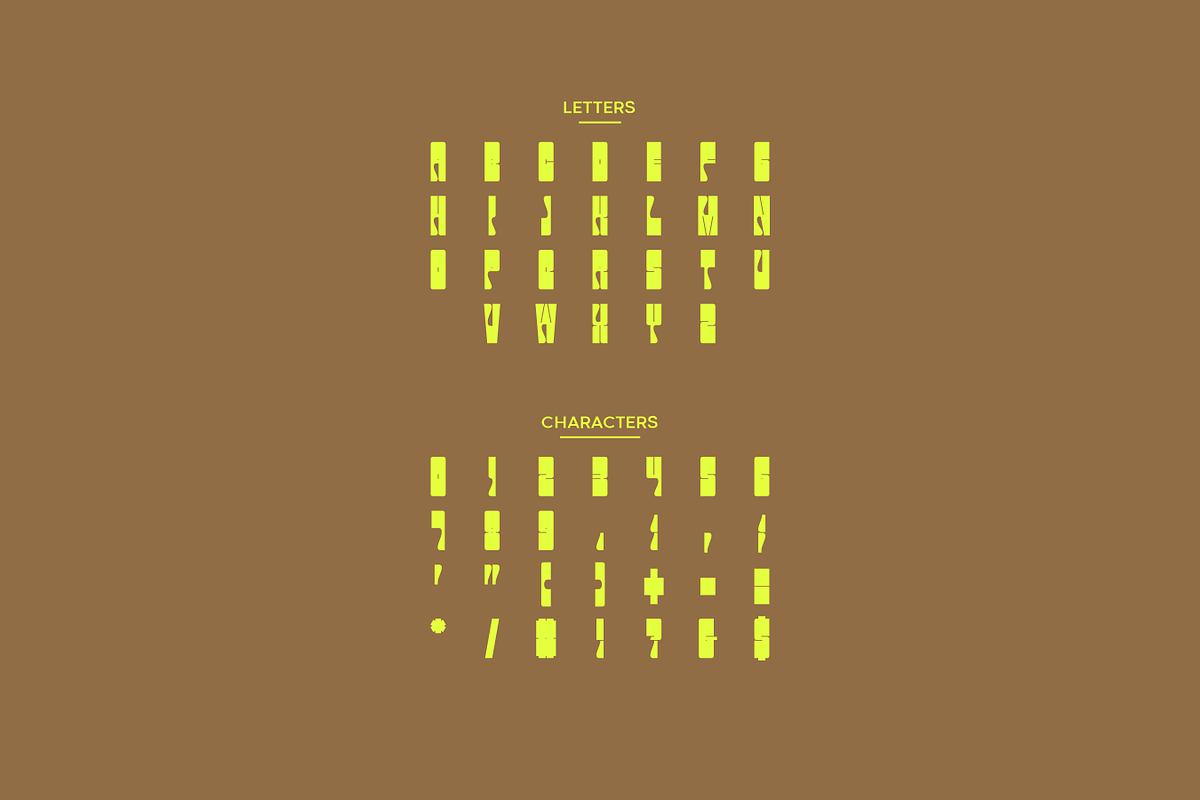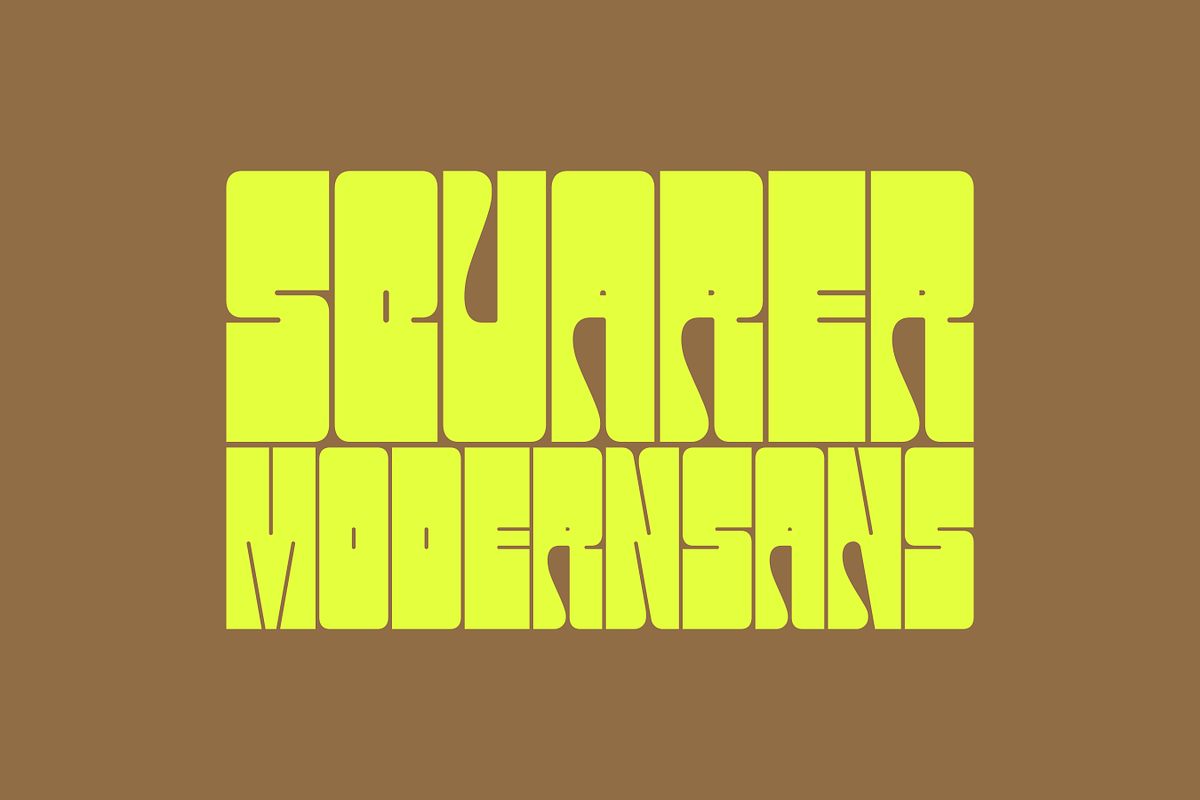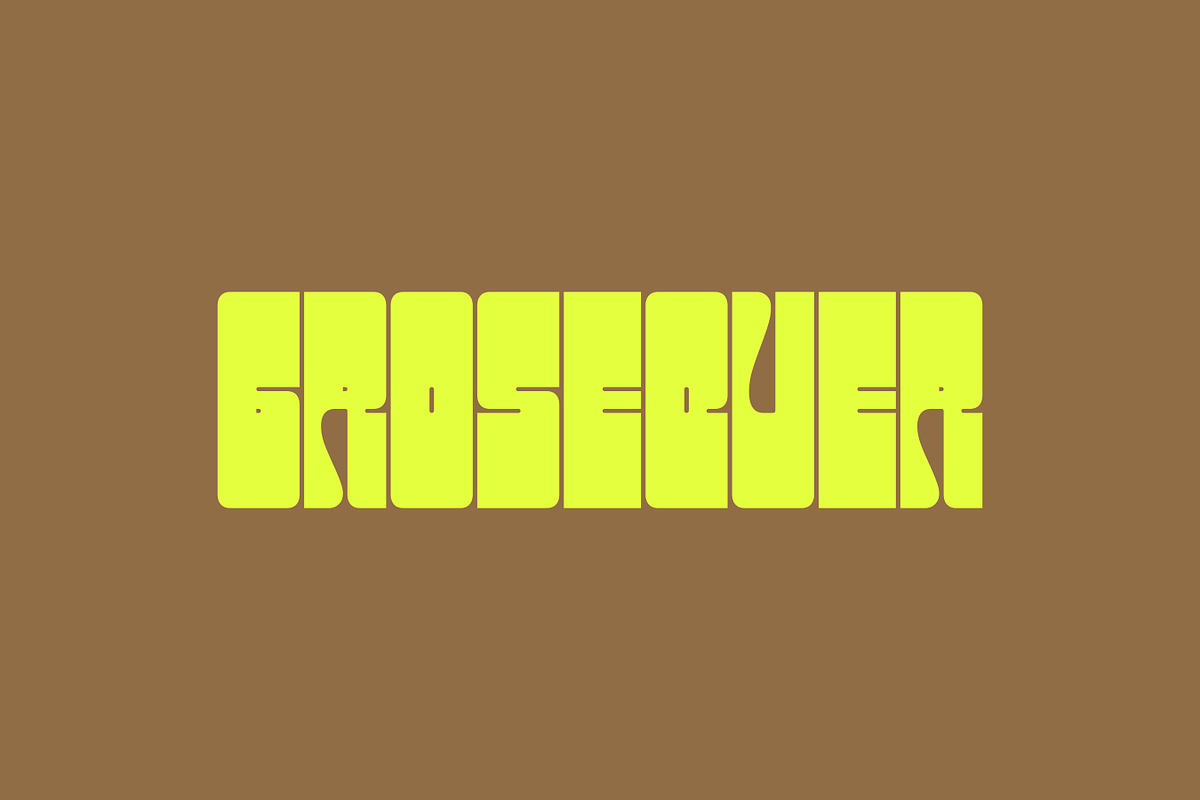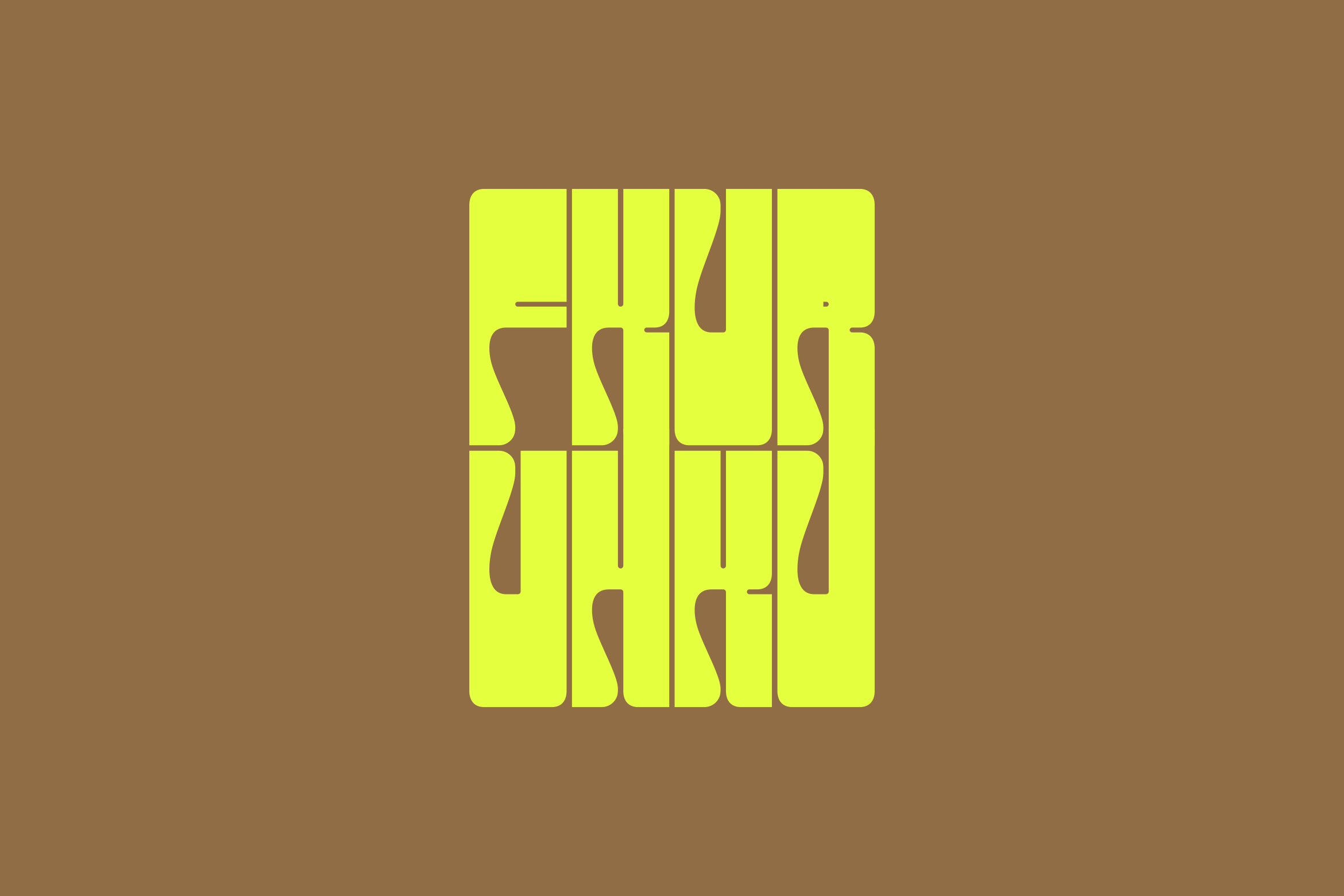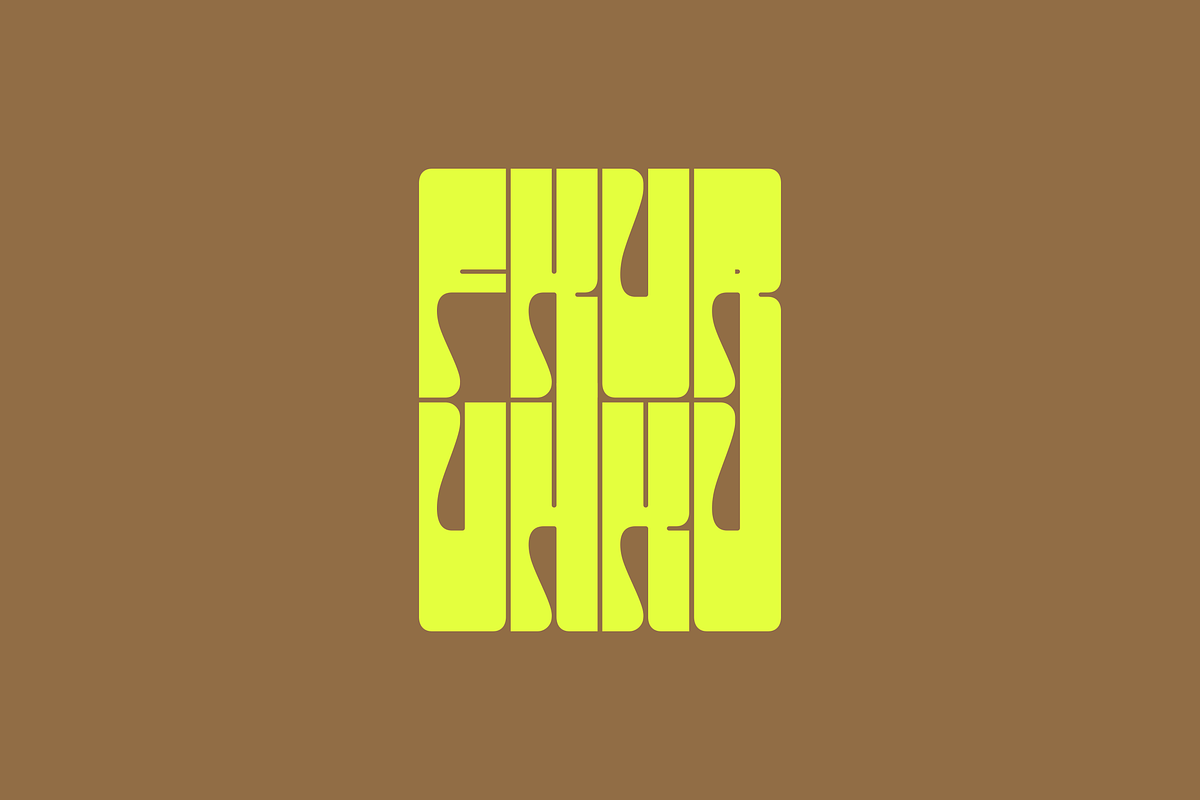
Fkuruhku - Modern Display Typeface
Introducing Fkuruhku Typeface! It's a bold decorative font that gives a gothic style. It is ideal for headline, packaging, poster, and any design that requires bold font. Fkuruhku is perfect for headline, logotype, magazine, packaging, quote, movie, game, cover album, book cover, and flyers, it's a perfect solution for creating eye-catching designs that stand out in any context.